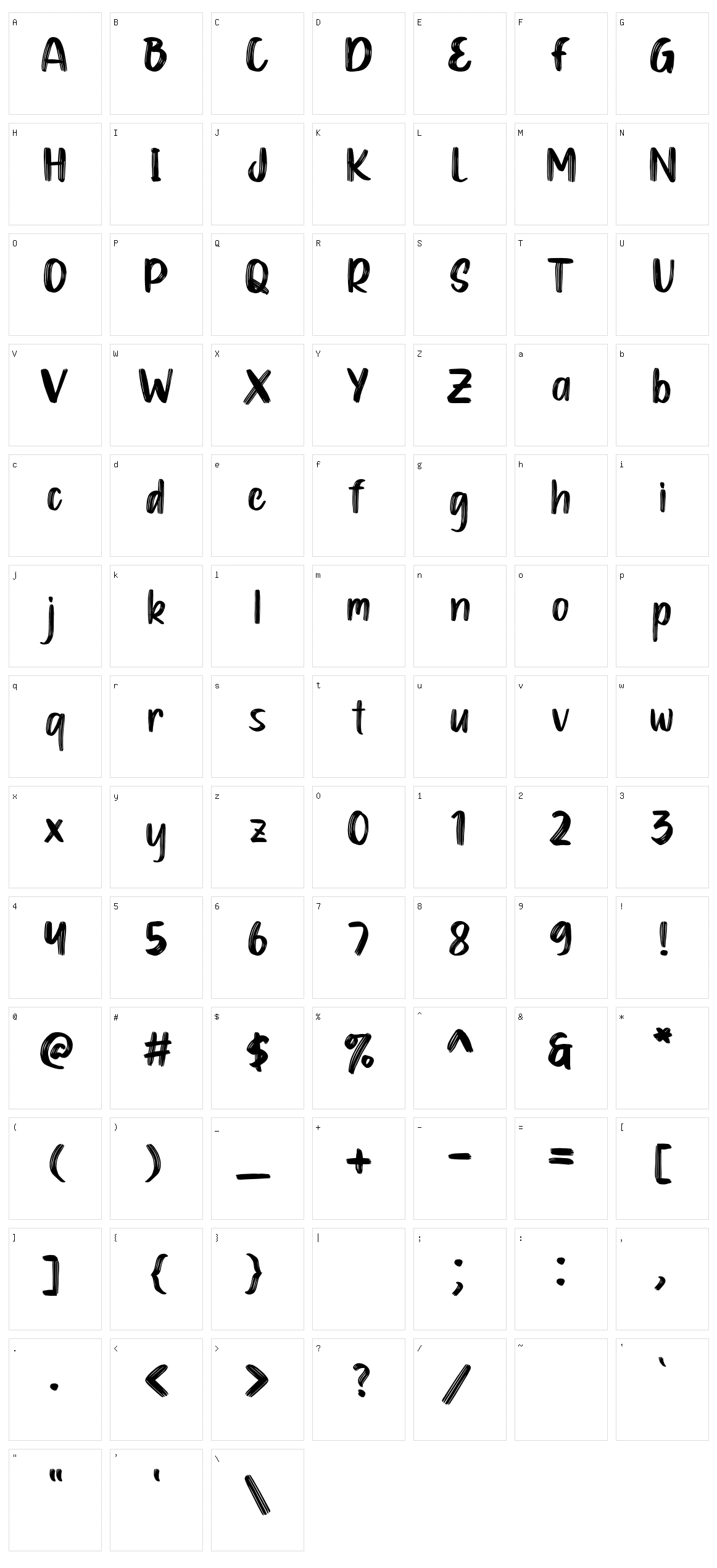
The free font Cartagena is carefully designed by Hendra Pratama, showcasing a thoughtful balance of creativity and usability and falls under the Script font style. When you download the ZIP file, it contains only 1929.53 KB of font files, making it lightweight and quick to download. Please review the license details below to understand permitted usage and distribution rights. If license information is not available, we recommend using this font for personal projects only or contacting the author directly for commercial usage permissions.